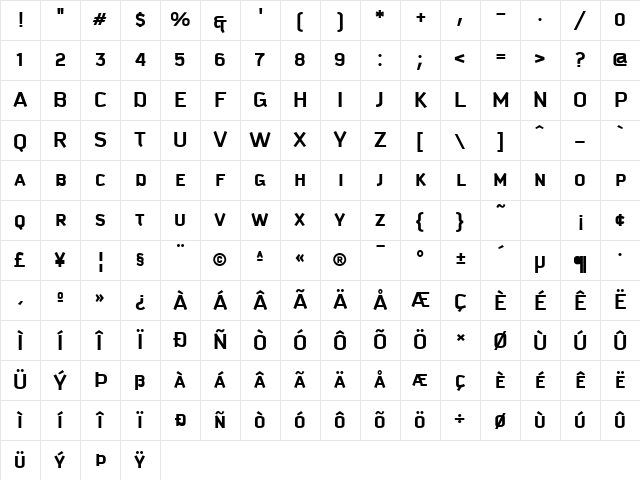
Kautiva Caps Bold
Foundry: SUDTIPOS. Disenada por Alejandro Paul y Alfredo Graziani. Todos los derechos reservados. Buenos Aires, Argenti
Kautiva Caps Family
Kautiva Caps Bold
Design Context for Kautiva Caps
Kautiva Caps is a composed and adaptable typeface that performs quietly and consistently across a wide range of design contexts. Its bold stroke weight gives it real presence on the page.
Frequently Asked Questions about Kautiva Caps Bold
Who designed the Kautiva Caps Bold font?
This font was published by SUDTIPOS. Disenada por Alejandro Paul y Alfredo Graziani. Todos los derechos reservados. Buenos Aires, Argenti. Check the technical specs section for copyright and designer details.